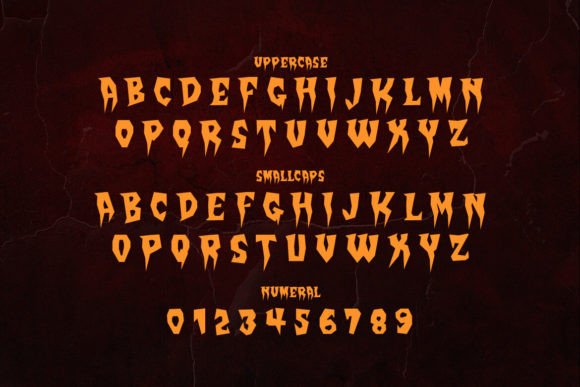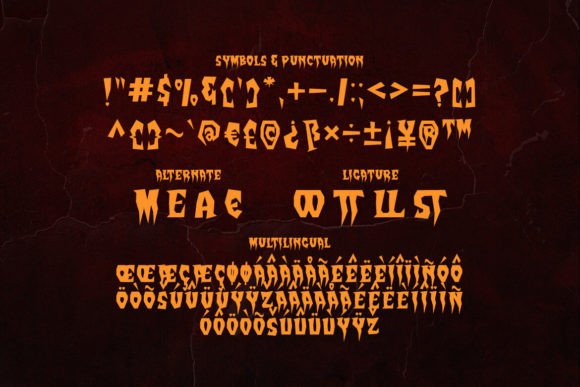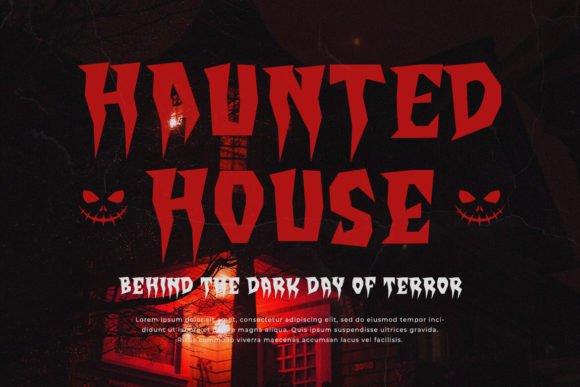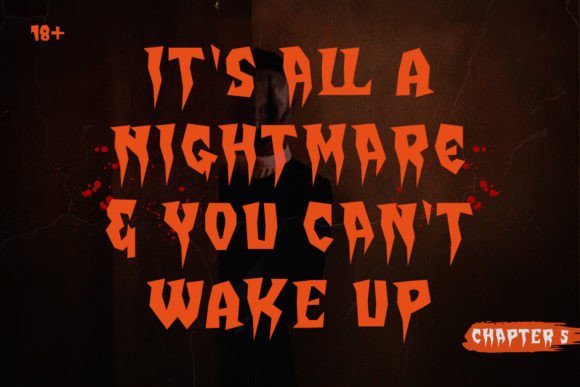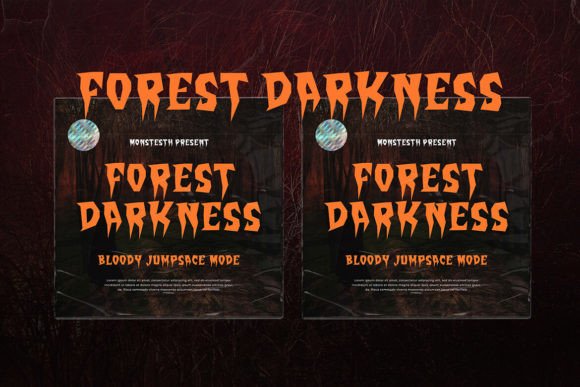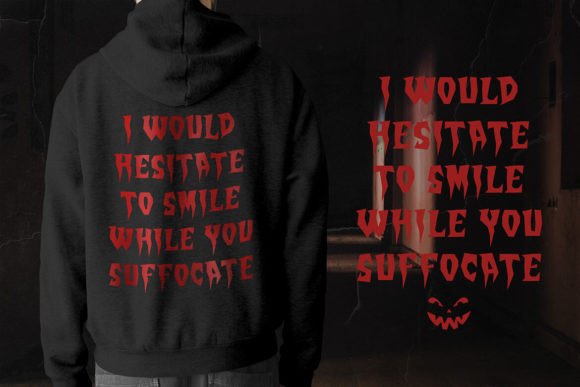
Introduction to Monstesh Font
Introducing “Montesh” – a horror display font that sends chills down your spine and adds a sinister edge to your designs.
With its jagged strokes and eerie letterforms, “Montesh” captures the essence of terror, making it perfect for horror movie posters, haunted house flyers, Halloween-themed projects, and more Embrace the dark allure of “Montesh” as it effortlessly enhances your designs with its haunting presence and bone-chilling typography.